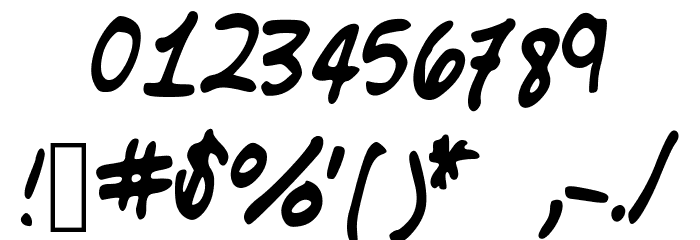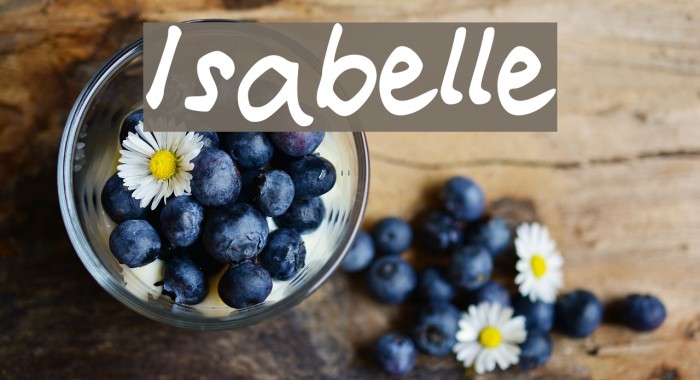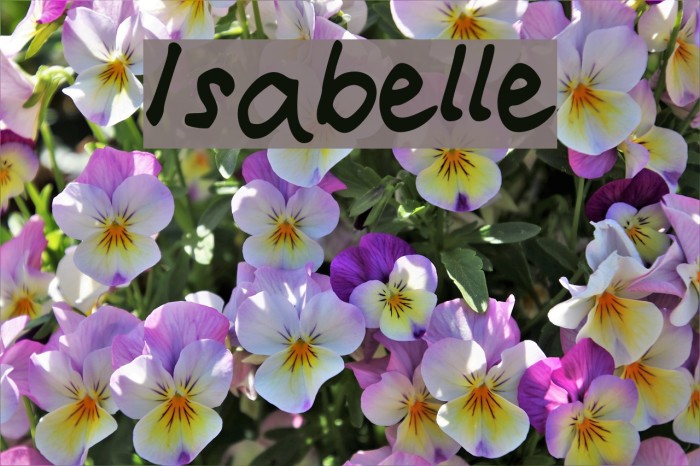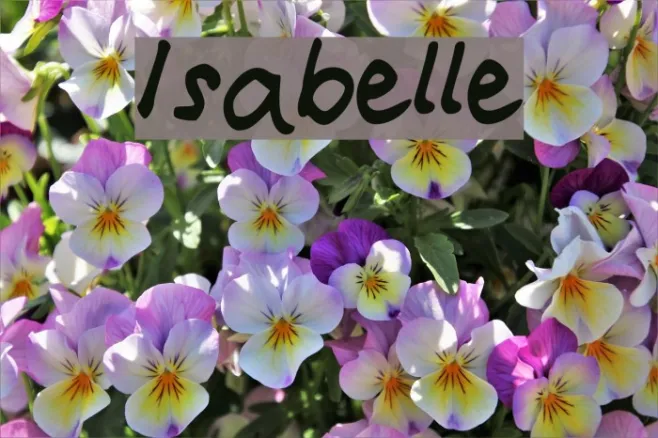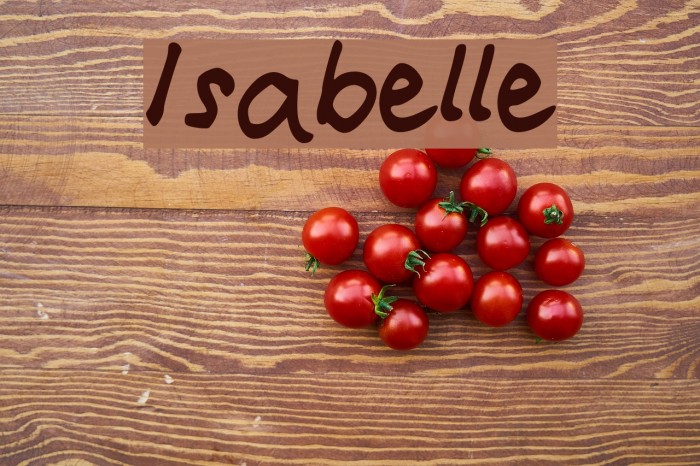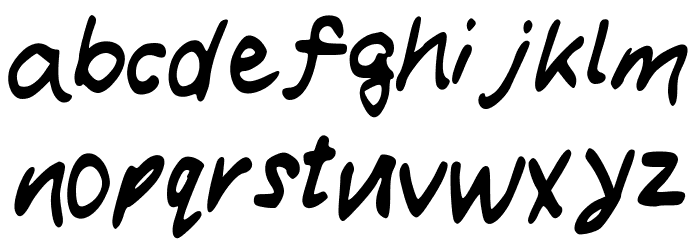
Isabelle Font
Isabelle Description
This font exudes a casual, handwritten style with a playful and informal appearance. The letters are slightly slanted, mimicking the natural flow of handwriting. Each character is distinct, with rounded edges and a consistent stroke width that gives it a friendly and approachable feel. The uppercase letters are bold and prominent, while the lowercase letters maintain a smooth and flowing connection. Numbers and special characters follow the same handwritten aesthetic, ensuring uniformity across all elements. This font is perfect for projects that require a personal touch, such as invitations, greeting cards, or creative branding.
| Overall Style | Casual |
| Use Case | Headlines, Logos, Invitations |
| Proposed Projects | Ideal for invitations, greeting cards, personal branding, and creative projects. |